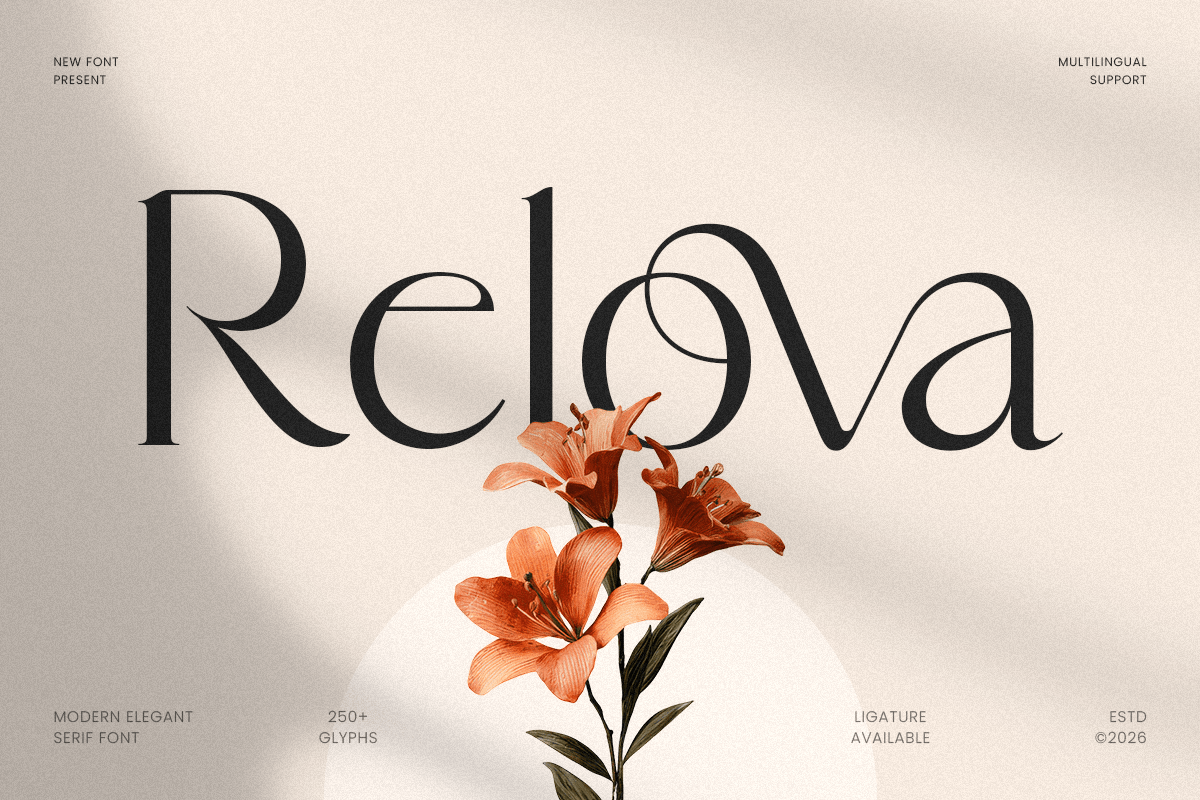
Relova
-Modern Elegant Serif FontRelova - Modern Elegant Serif Font
Relova is a modern elegant serif font designed to deliver refined sophistication with a clean contemporary edge. Featuring graceful serif details, balanced proportions, and a polished visual rhythm, this typeface creates a premium tone that feels stylish, timeless, and instantly brand-ready.
Built for high-end typography, Relova works beautifully across logos, wordmarks, brand identity systems, editorial layouts, magazine covers, website headers, packaging, labels, invitations, signage, presentations, and upscale marketing visuals. Its elegant serif structure ensures readability while adding a luxurious presence across both digital and print design.
Whether you’re building a fashion identity, developing a beauty brand, designing premium packaging, or crafting a sophisticated editorial concept, Relova provides a modern serif foundation that makes your typography feel polished, professional, and unforgettable.
Inspiration Behind Relova
Relova is inspired by contemporary luxury branding and modern editorial typography—where refined serif structure, clarity, and visual balance define premium communication. The design focuses on elegant rhythm and timeless sophistication to support upscale identities with a clean, modern feel.
Relova Font Features:
Modern elegant serif letterforms with refined premium character
Perfect for logos, branding systems, and editorial headline typography
Clean structure for elegant layouts and strong readability
Luxury logos, wordmarks, and premium brand identity systems
Fashion, beauty, skincare, fragrance, and boutique branding
Editorial layouts, magazine covers, lookbooks, and headlines
Premium packaging, labels, invitations, and elegant stationery
Social media campaigns, websites, presentations, and marketing assets